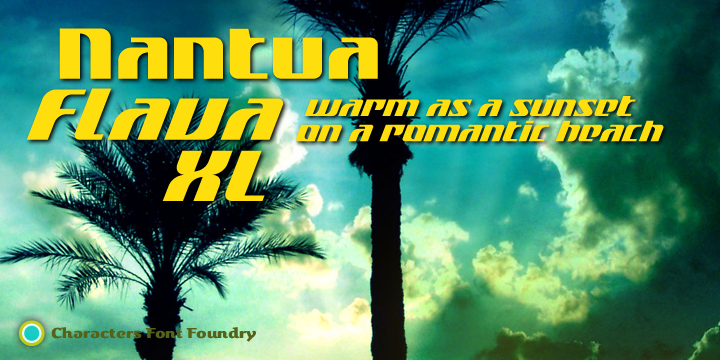
Nantua Flava Font is perfect for urban music album covers, hip-hop event posters, street culture branding, trendy fashion labels, contemporary art galleries, modern lifestyle magazines, vibrant advertising campaigns, and creative projects that require fresh, energetic typography with contemporary urban flavor and cultural authenticity.
This Nantua Flava Font is exciting because it pulses with modern urban energy and cultural vibrancy, featuring dynamic letterforms with stylistic flair that capture the essence of street culture and contemporary expression while maintaining strong readability for impactful visual communication across diverse media platforms.
The Nantua Flava Font family includes bold weights with urban-inspired styling, complete character sets with expressive uppercase and lowercase letters, rhythmic numerals, dynamic punctuation, and cultural symbols that provide comprehensive typography solutions for contemporary projects requiring authentic urban aesthetics and street credibility.
Perfect for creating vibrant cultural communications and trendy brand identities, Nantua Flava Font Free Download delivers the authentic urban typography that transforms text into powerful expressions of contemporary culture and street sophistication. This distinctive typeface captures the pulse of modern urban life, making it essential for projects celebrating street culture, music industry branding, fashion-forward design, and any creative work requiring genuine urban flavor with contemporary cultural authenticity.